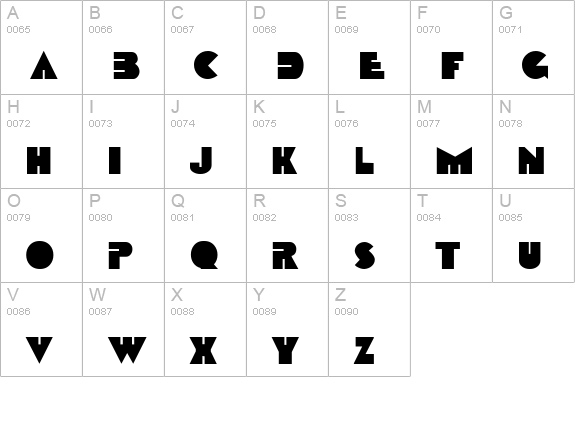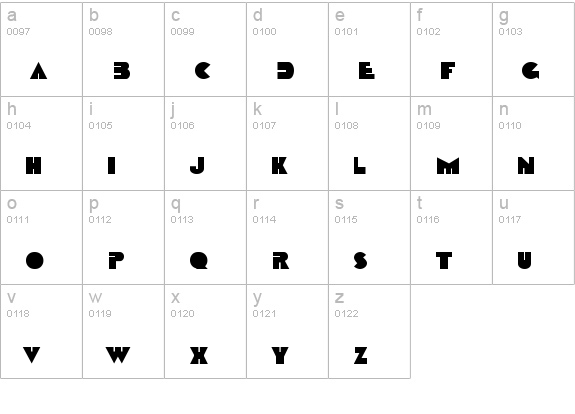
Circular FC Font Details
Circular FC font is a modern and stylish typeface that exudes sophistication and elegance. Its perfect combination of clean lines and rounded edges give off a sleek and polished look that is ideal for a wide range of design projects. Whether you're creating a professional website, designing a sleek logo, or crafting a stylish invitation, Circular FC font will elevate your work to the next level. What's even better is that Circular FC font is completely free to download at FontsMarket.com. This means you can access this fantastic font without any cost, making it a valuable addition to your font collection. Don't miss out on the opportunity to enhance your designs with the timeless beauty of Circular FC font. Download it today and watch your projects come to life with style and sophistication.